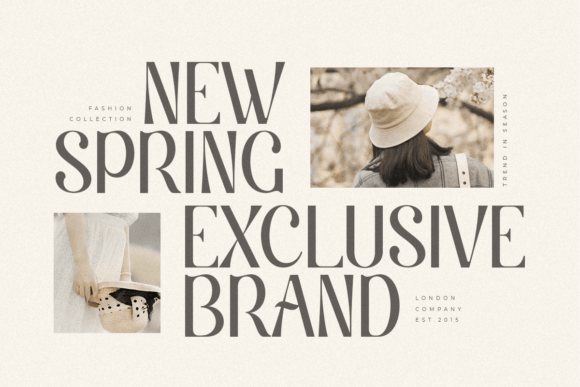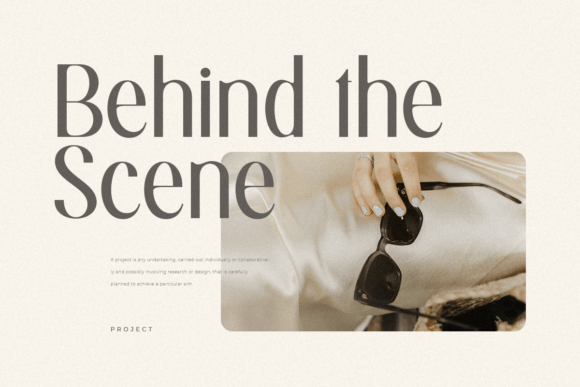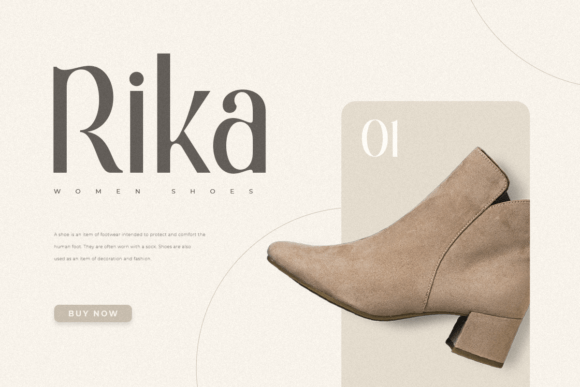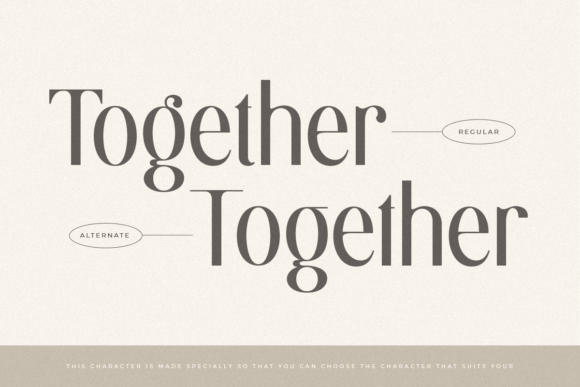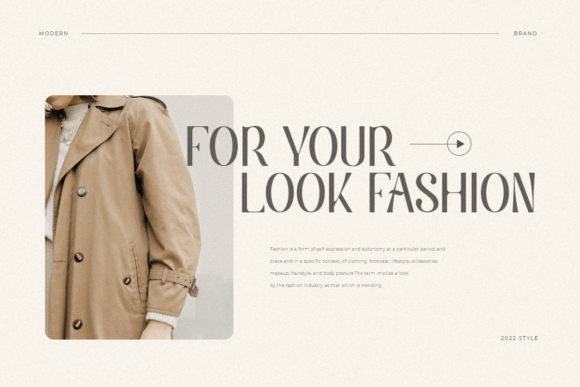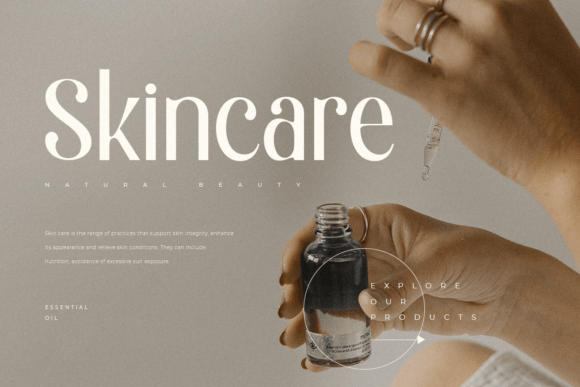
Introduction to Rumitah Font Font
Fonts play a crucial role in design, and the Rumitah Font font is a typeface that brings both character and versatility to any project. Whether you’re working on a branding project, a website, or a print design, the Rumitah Font font offers a unique style that can elevate your work.
A Luxury Classy Modern Sans Serif Font that is special for the show headline and logo with Elegant style, with unique shape will be ready to add value to your brand.
It is so nice to leverage designers or product owners who need solutions to make their designs look more stylish and modern And especially for Rumitah font, we prepared any characters to help you create unlimited variations for your creative needs.
Key Features of Rumitah Font Font
Why Choose Rumitah Font Font?
The Rumitah Font font is more than just a typeface – it’s a design tool that helps you communicate your message with style and clarity. Its unique character set and versatile design make it suitable for a wide range of applications, from elegant invitations to bold headlines.
With its carefully crafted letterforms and balanced proportions, the Rumitah Font font ensures readability and visual appeal across all mediums.
What makes Rumitah Font font special?
The Rumitah Font font stands out with its unique design, exceptional readability, and versatility across various design applications.